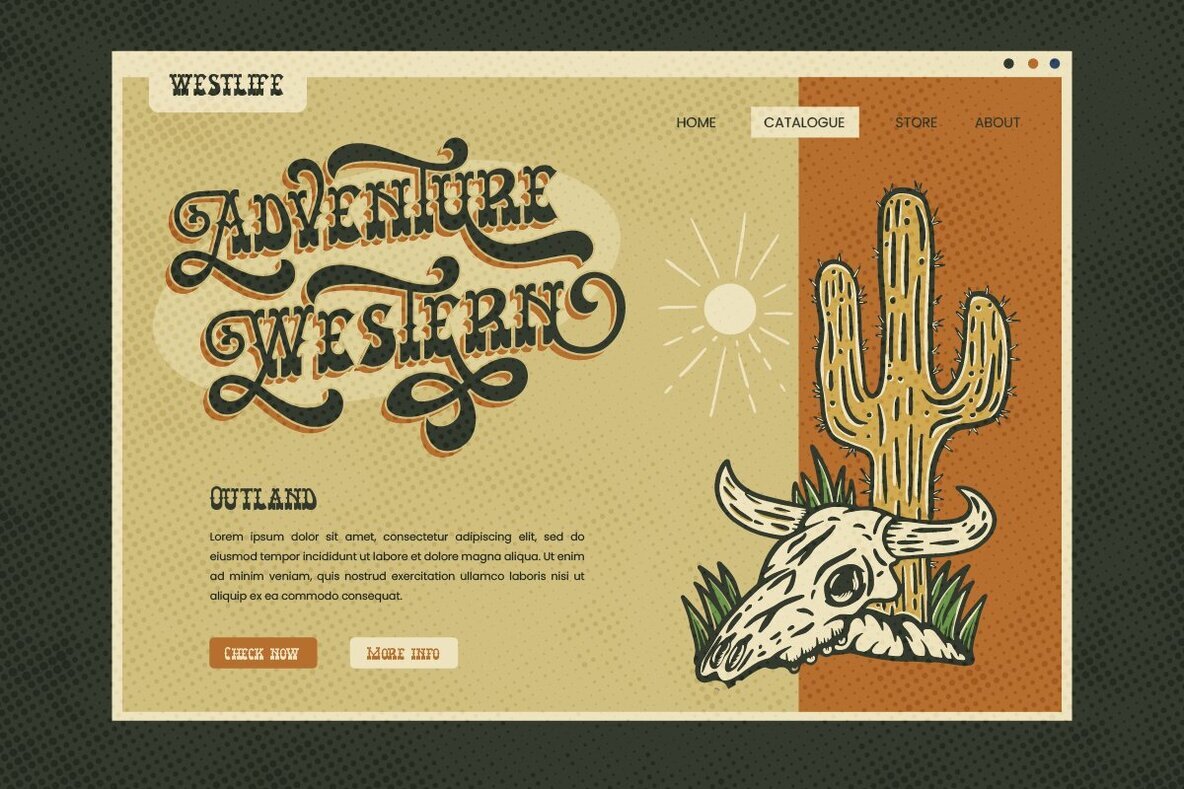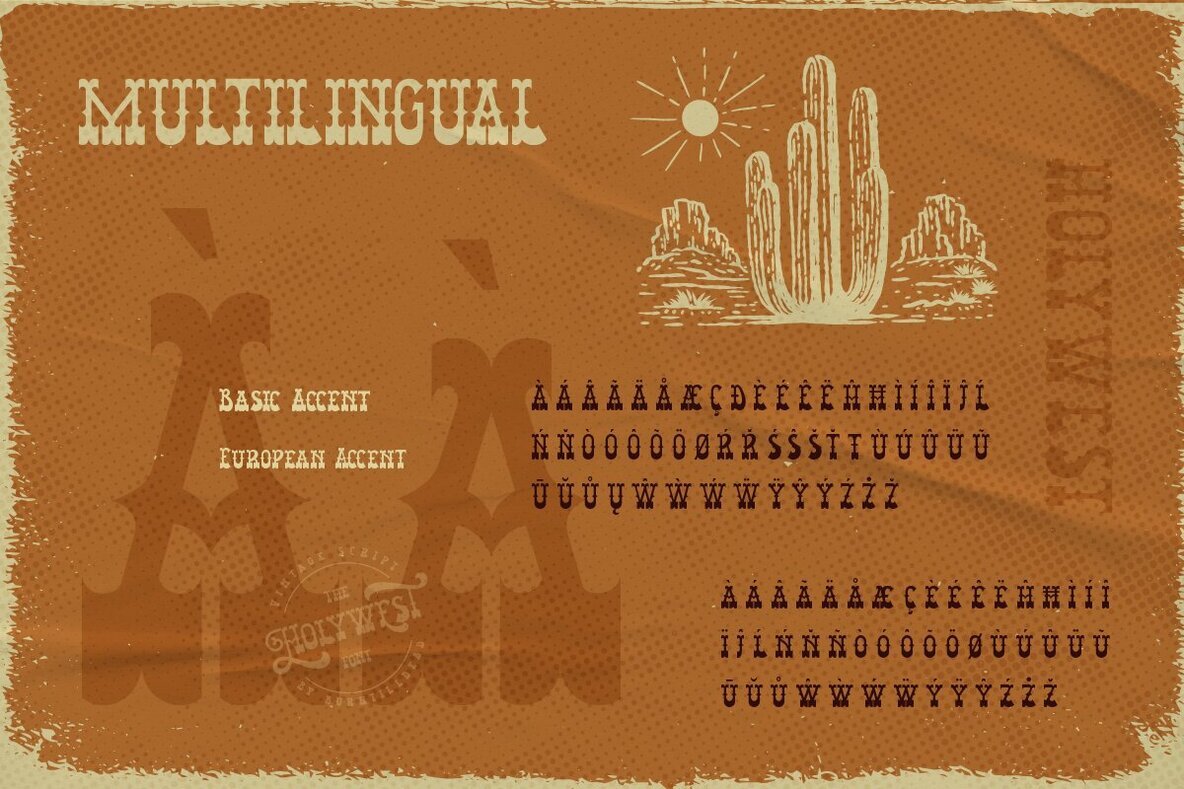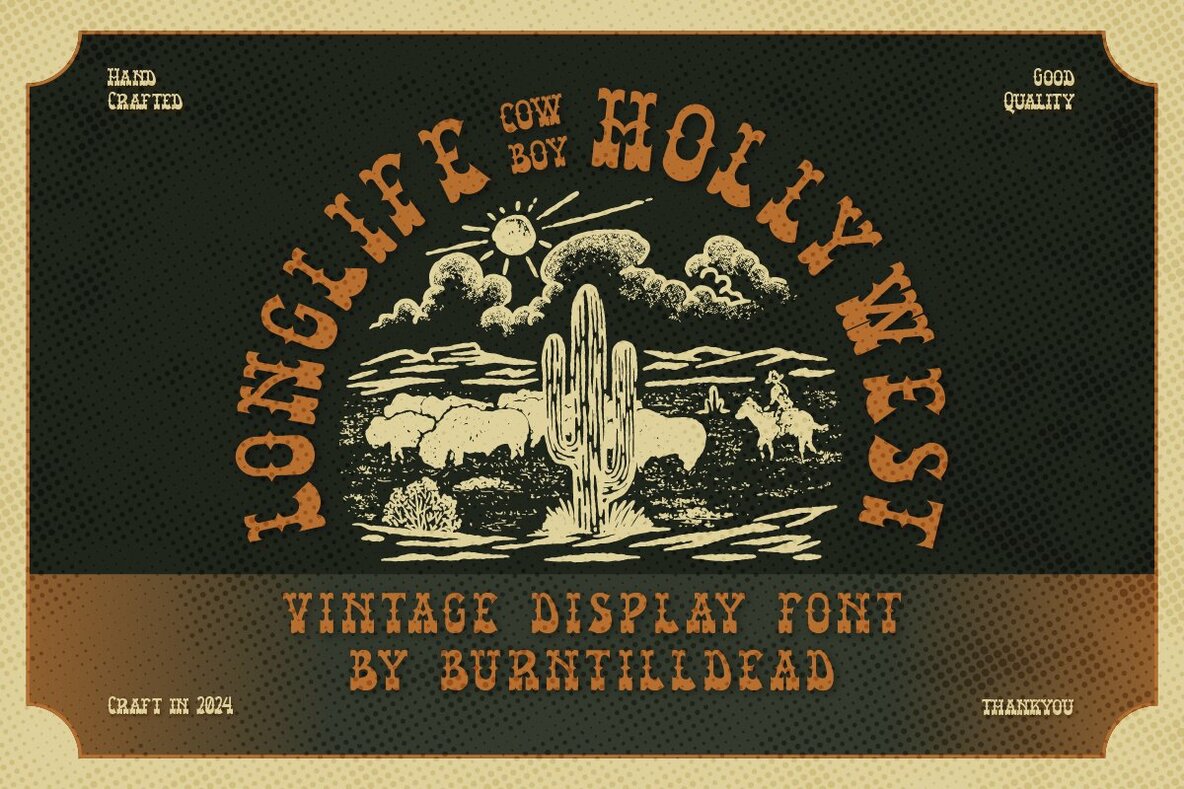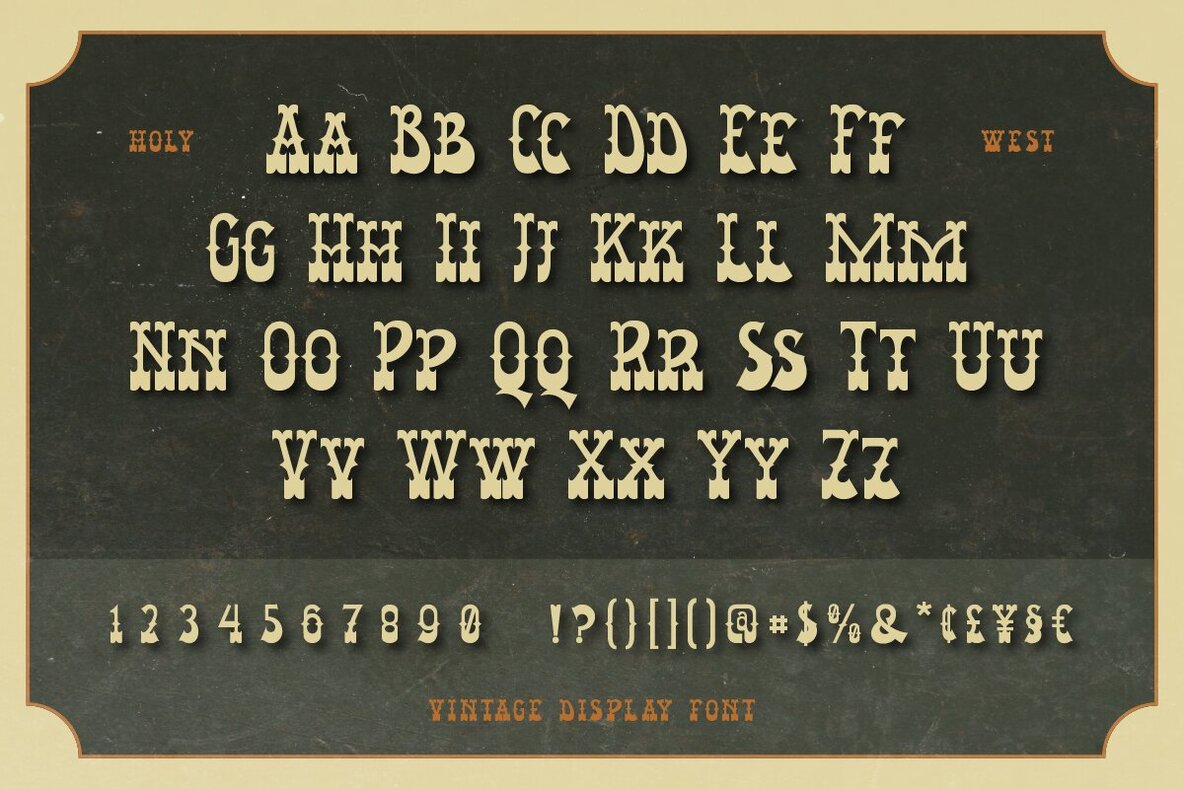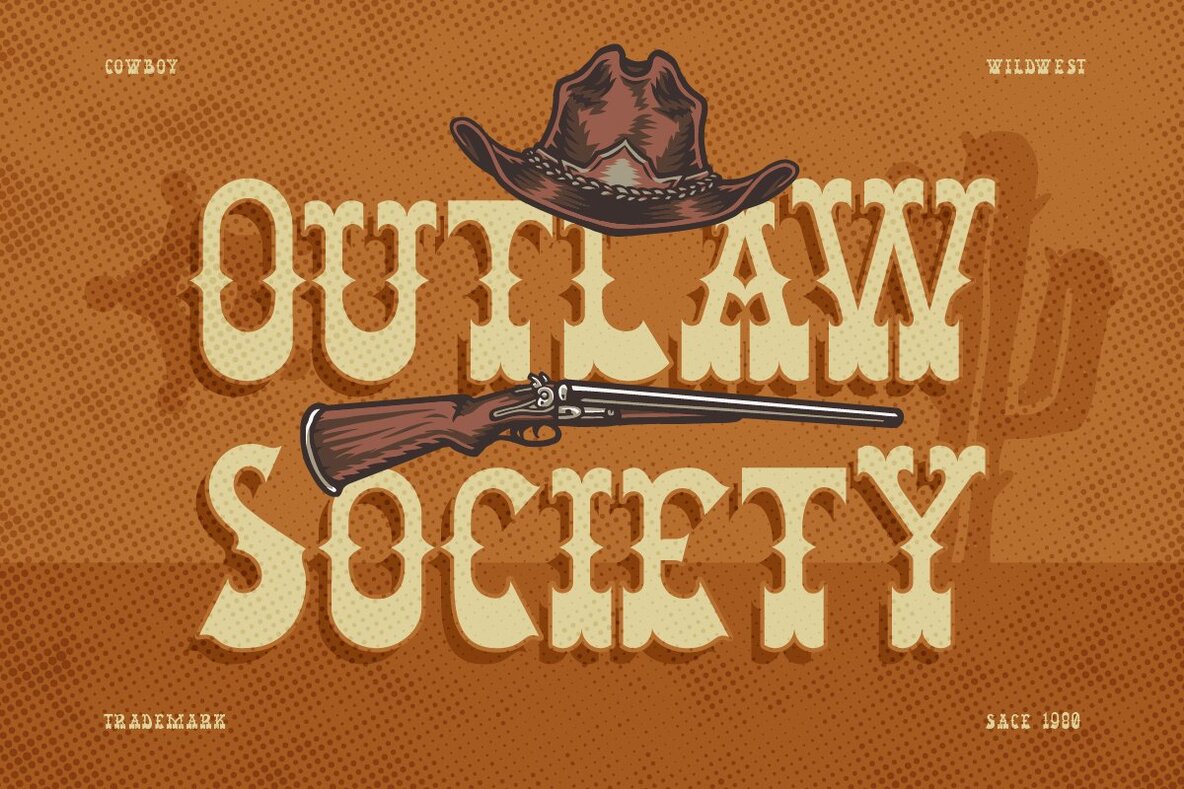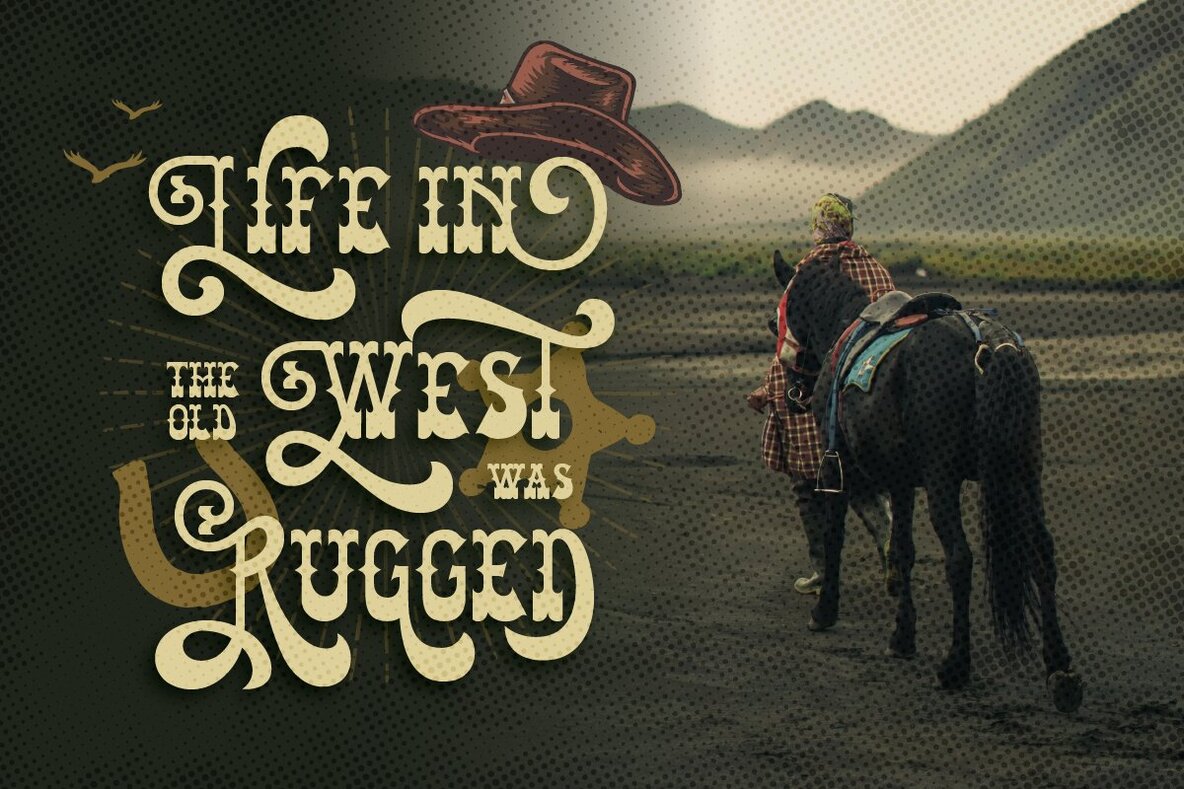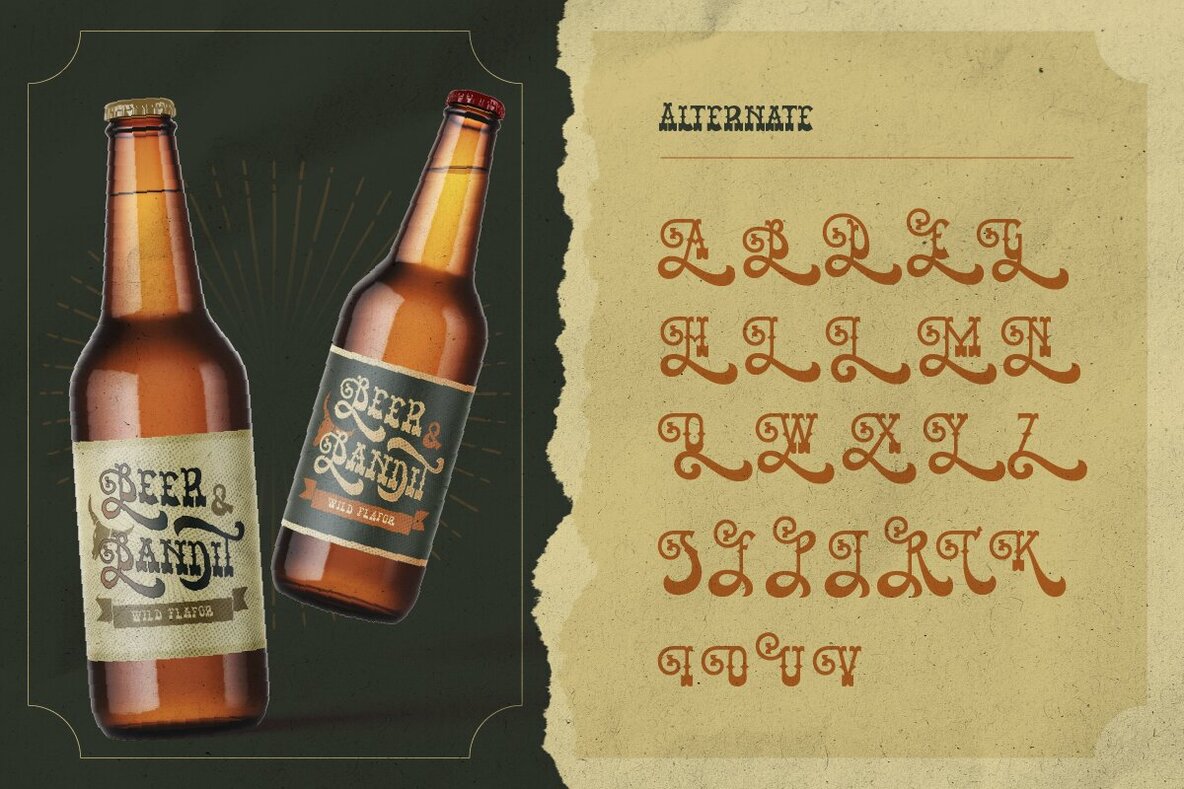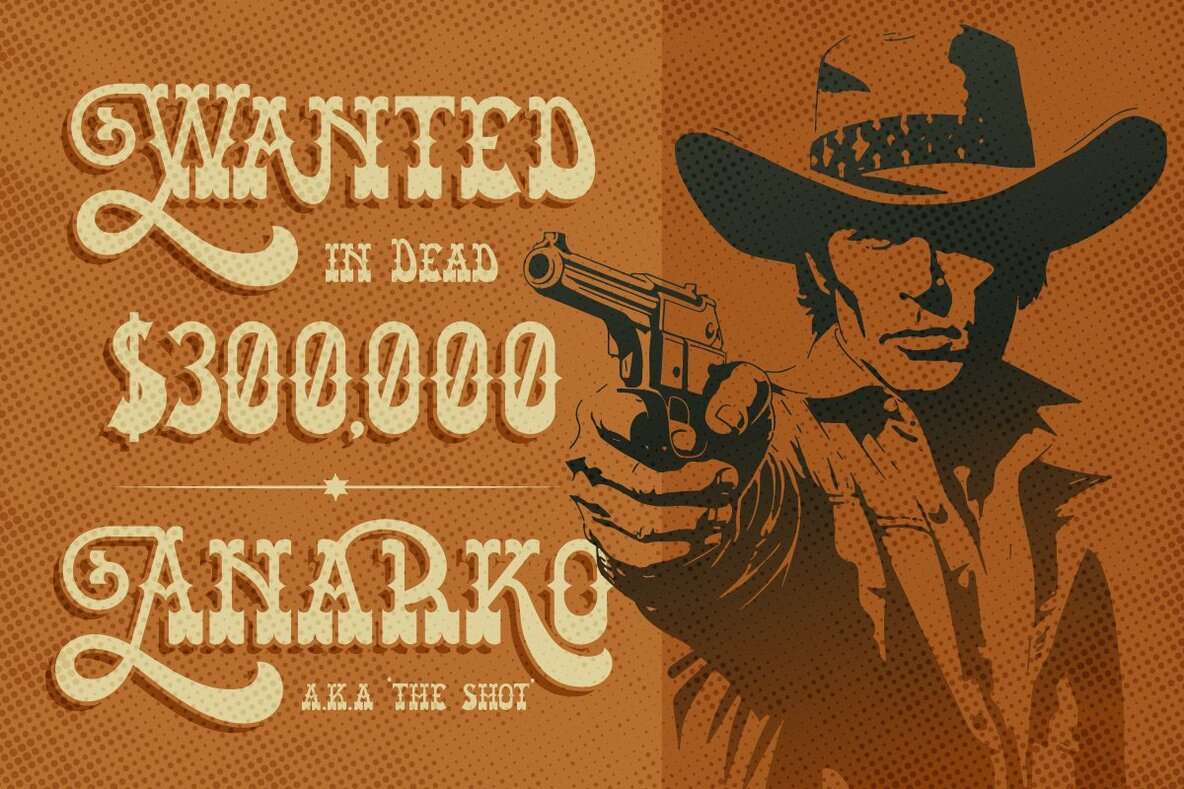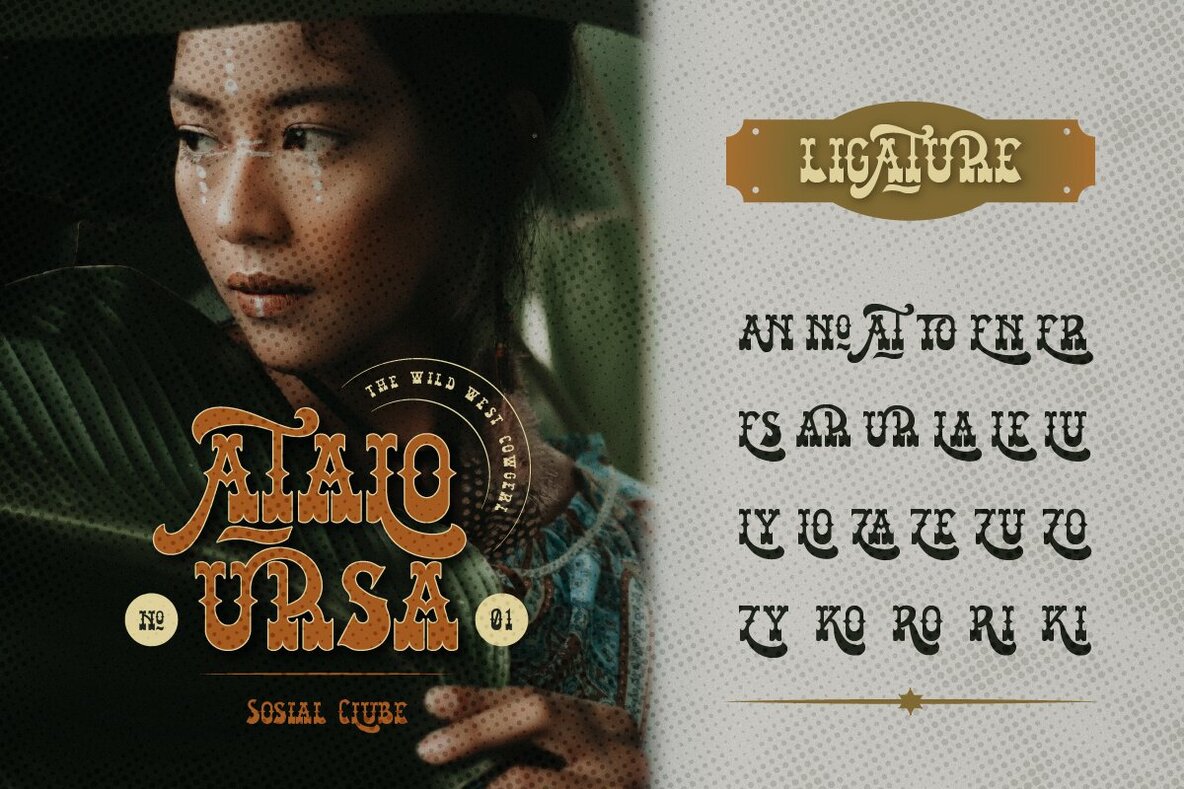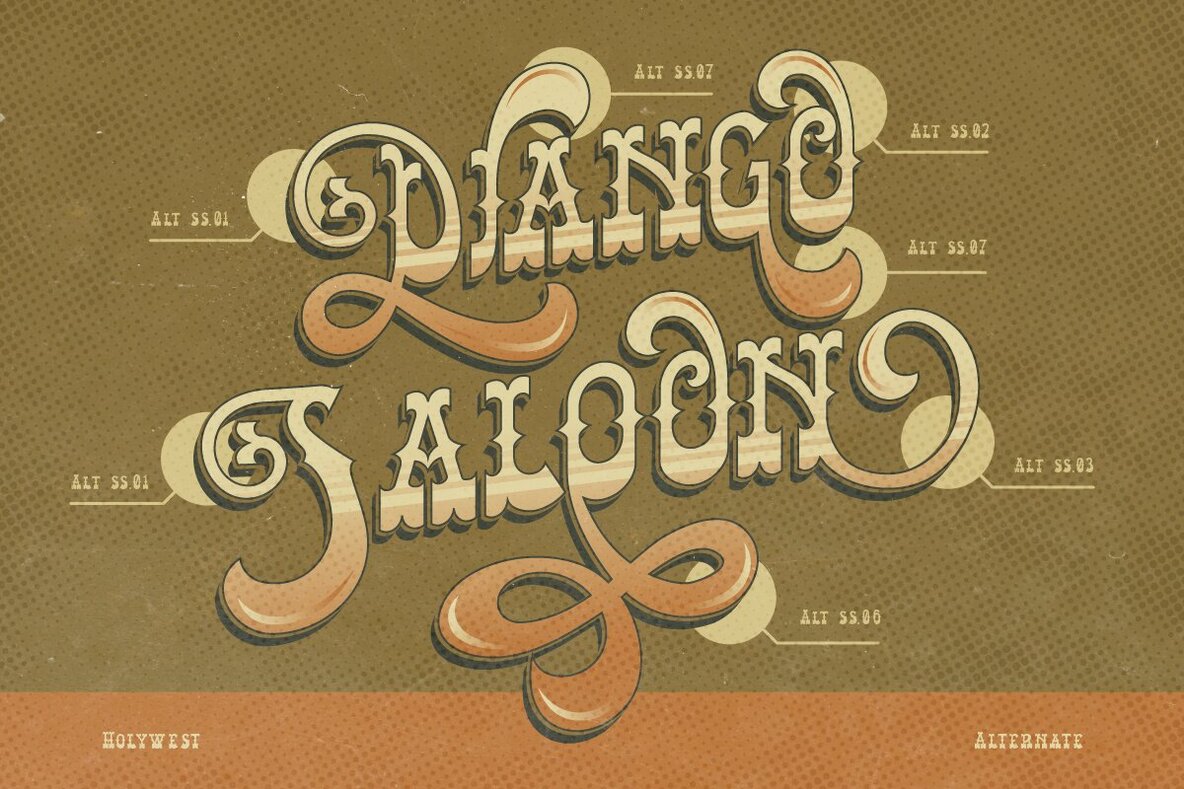
Holywest Font
Holywest Regular
Proudly present Holywest, a vintage display font that evoke the era of cowboys and saloons. Holywest show the essence of vintage aesthetic and cowboy culture with the decorative serif type. This font is a good choice for any design project that need sense of a Wild West or historic American. Features: